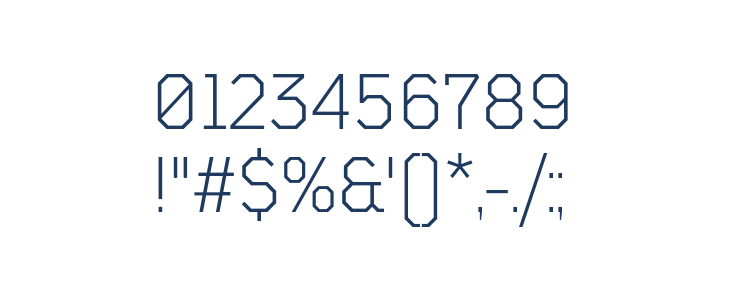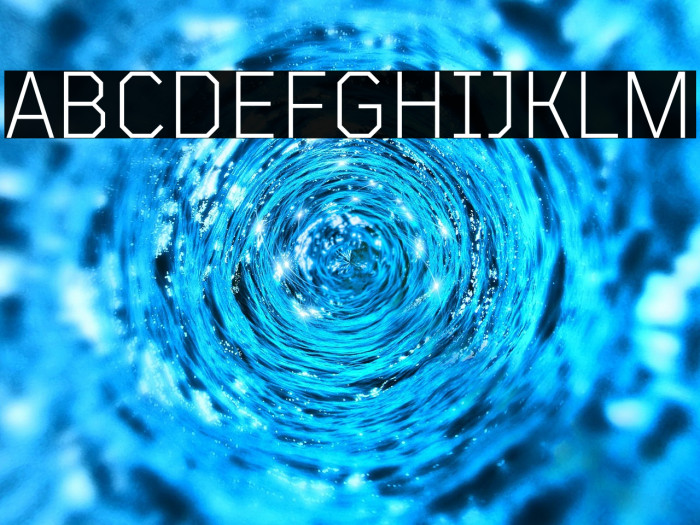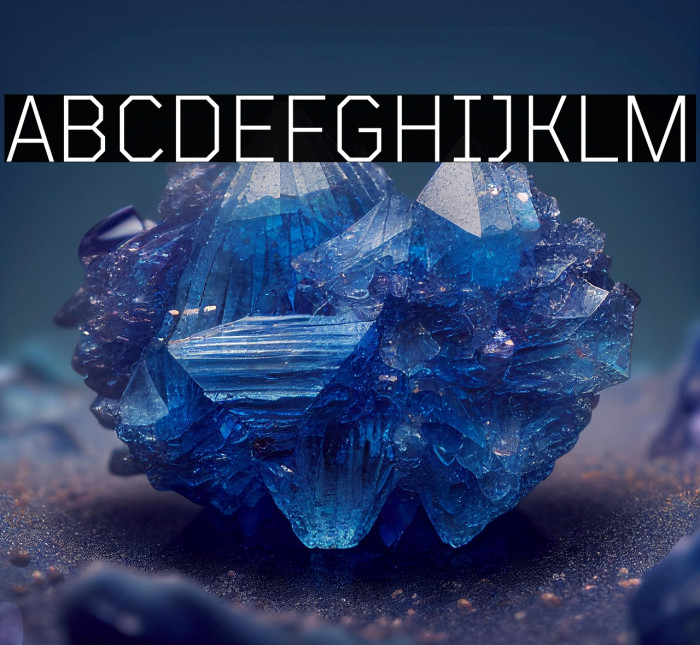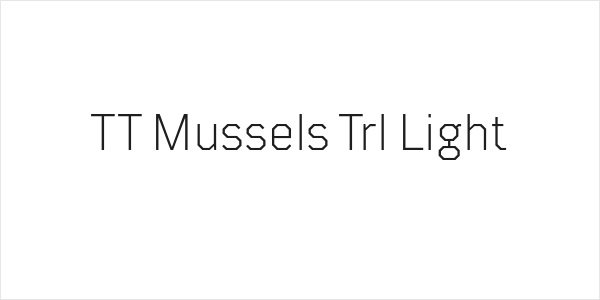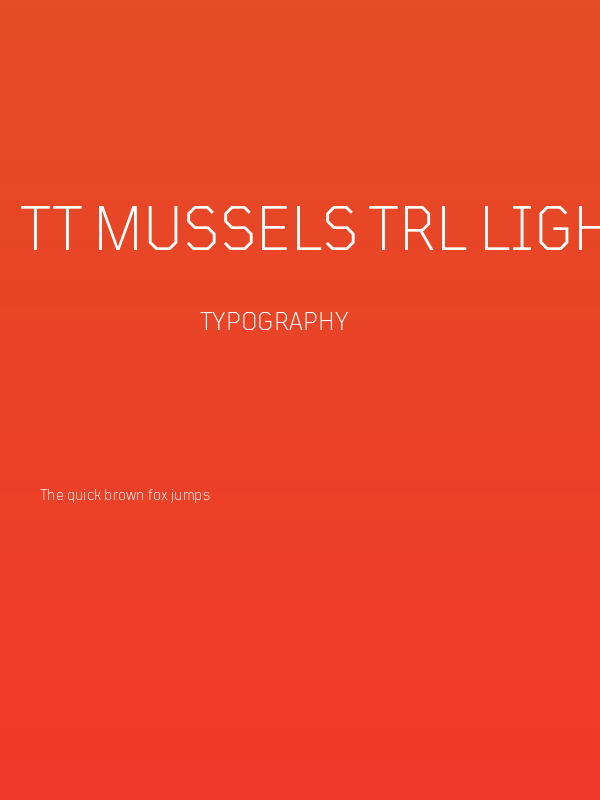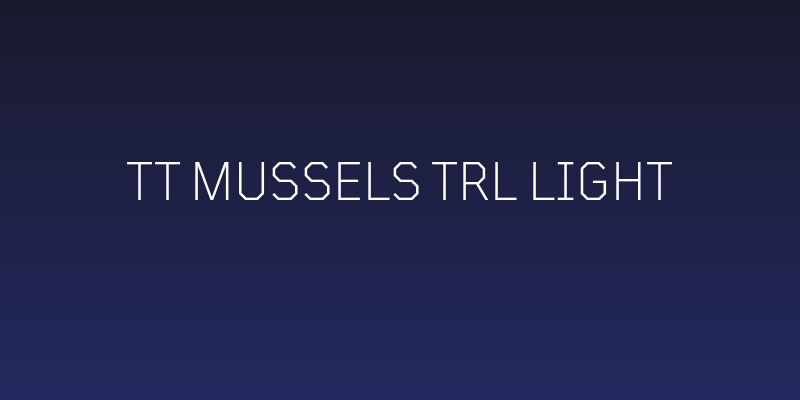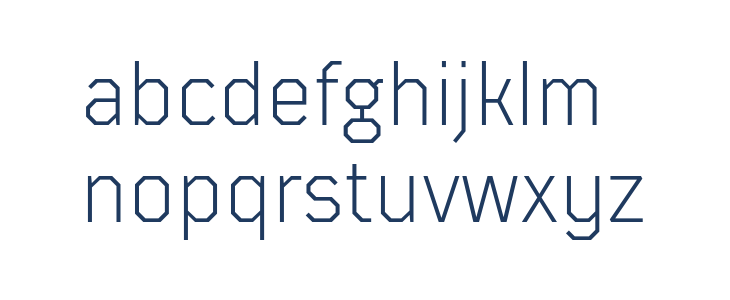
TT Mussels Trl Light Font
TT Mussels Trl Light Description
This font features a geometric and modern design with a distinct octagonal structure. Each character is crafted with precision, showcasing clean lines and a uniform stroke width that gives it a technical and futuristic appearance. The uppercase and lowercase letters maintain a consistent style, while the numerals and special characters complement the overall aesthetic. Its simplicity and clarity make it highly legible, suitable for various design applications. The font's unique shape adds a touch of sophistication and modernity, ideal for projects that require a contemporary and sleek look.
| Use Case | Headlines, Logos, Digital interfaces |
| Proposed Projects | Ideal for tech branding, modern posters, digital interfaces, and architectural designs. |